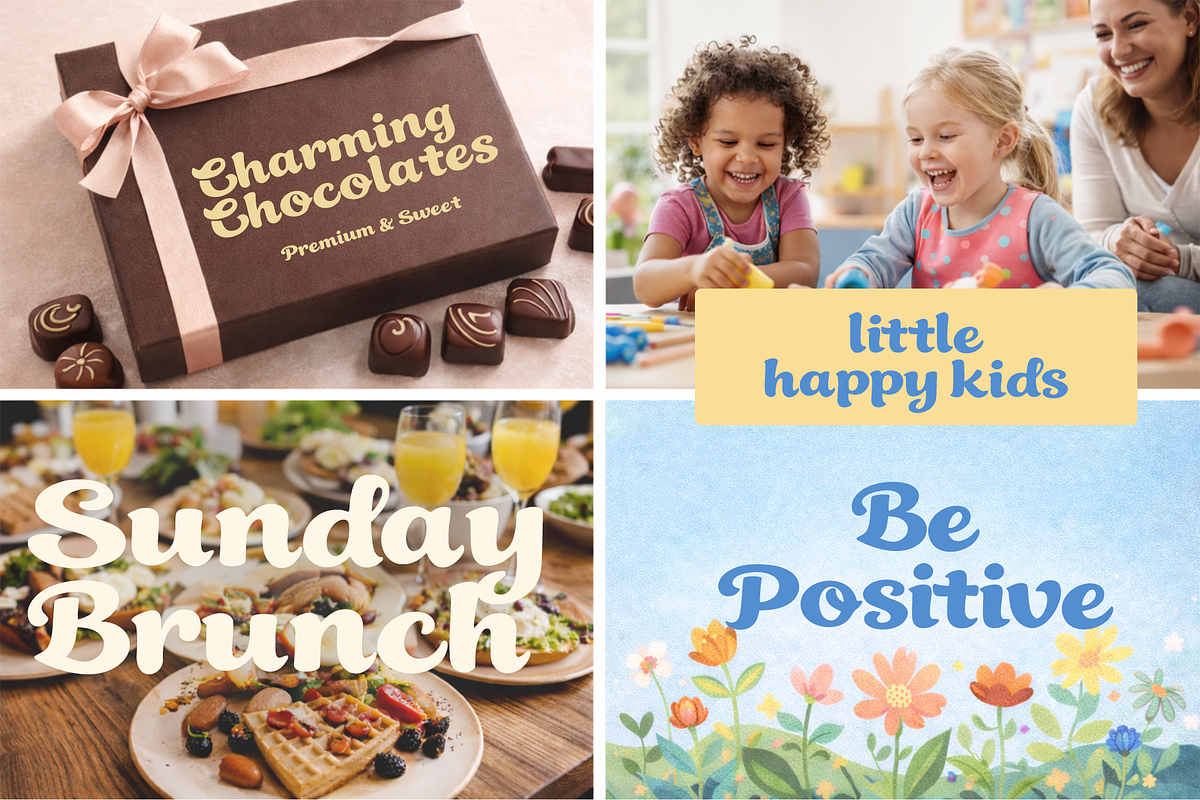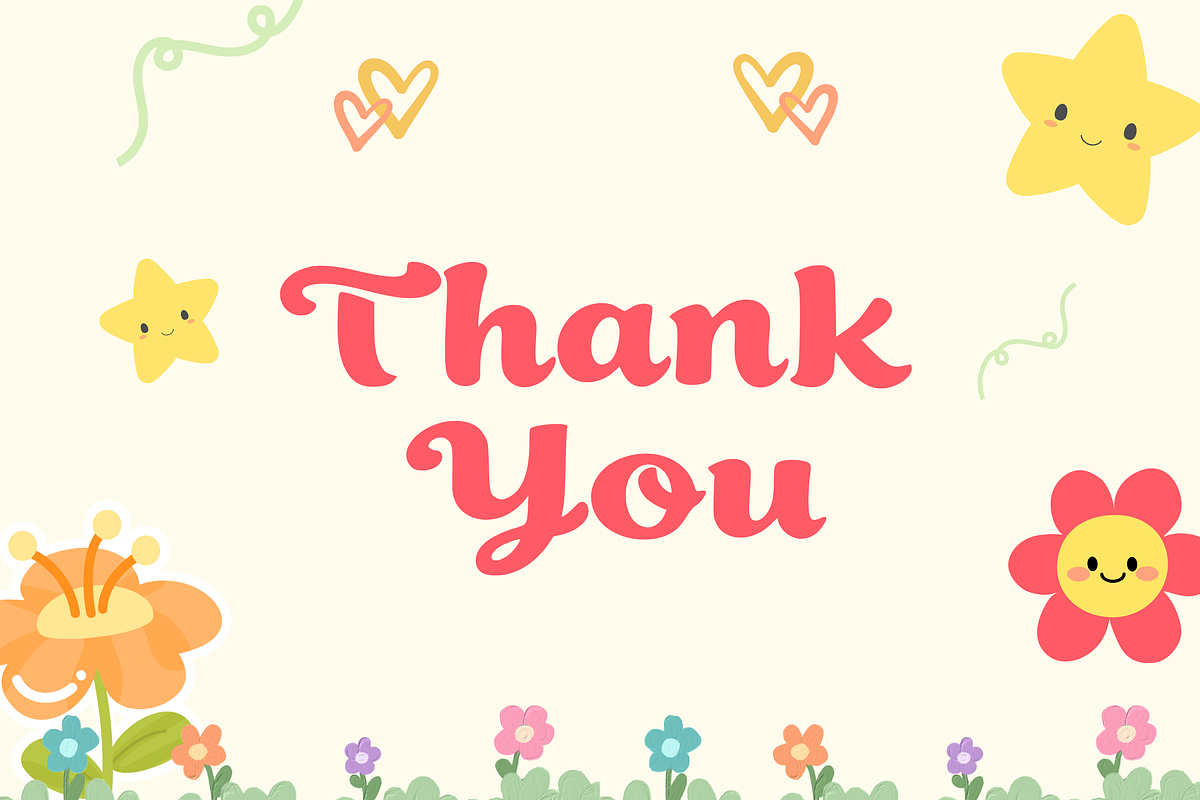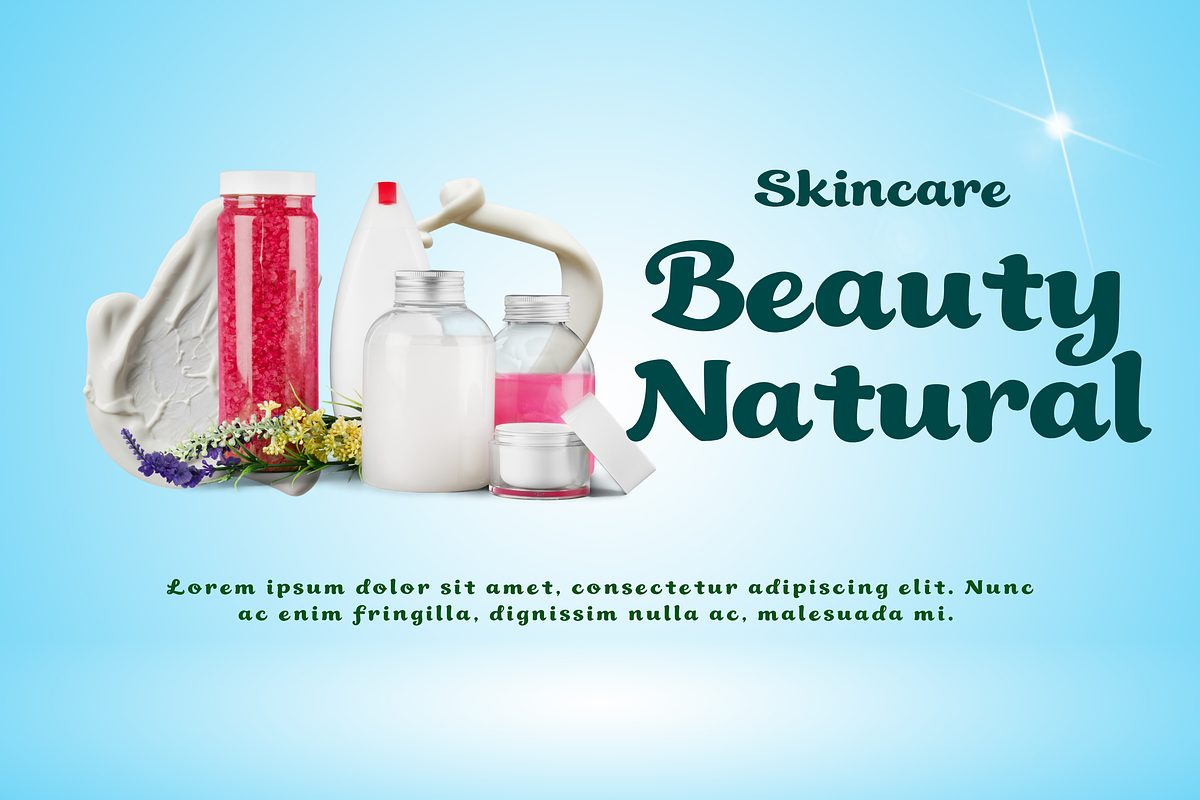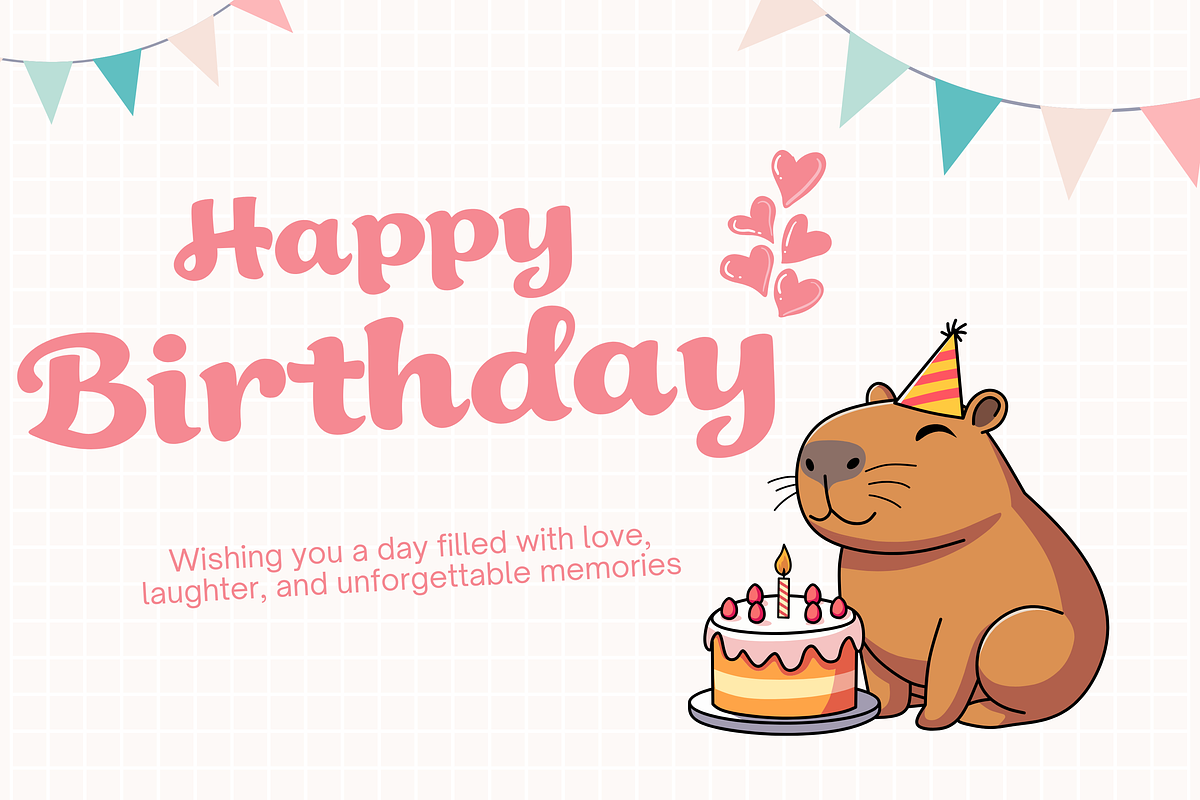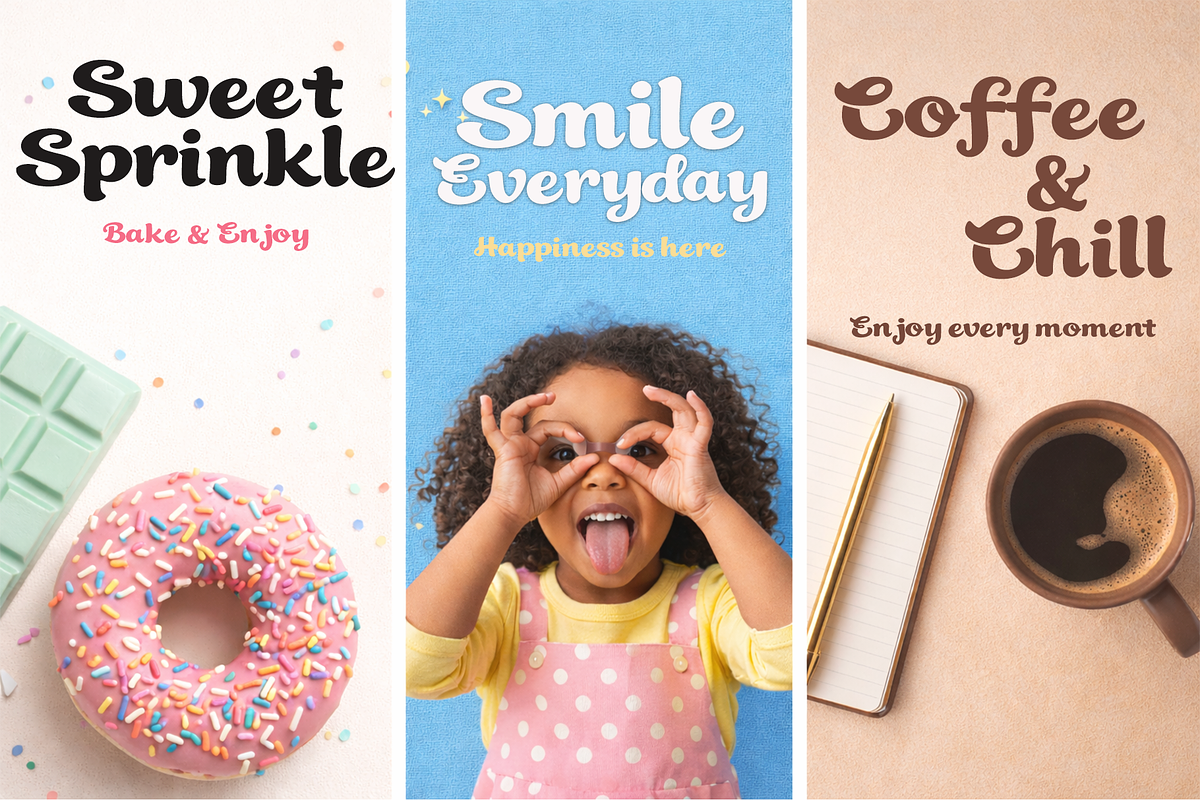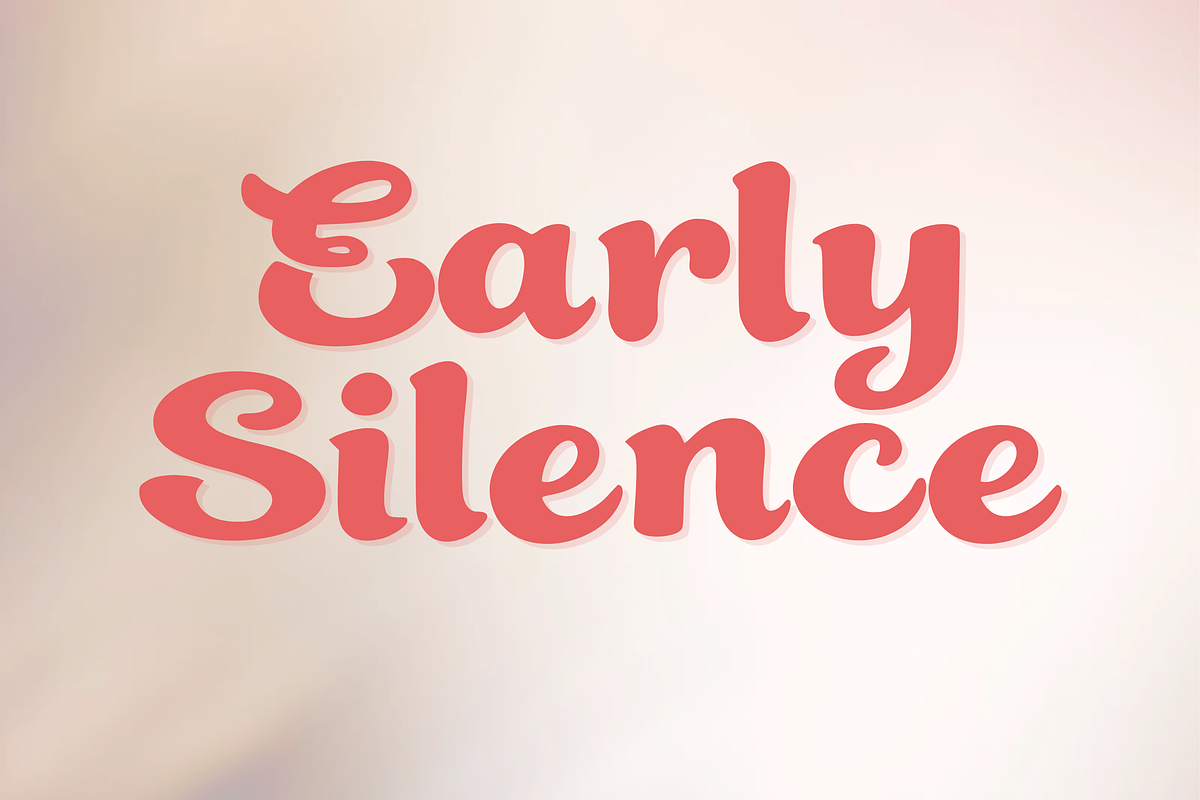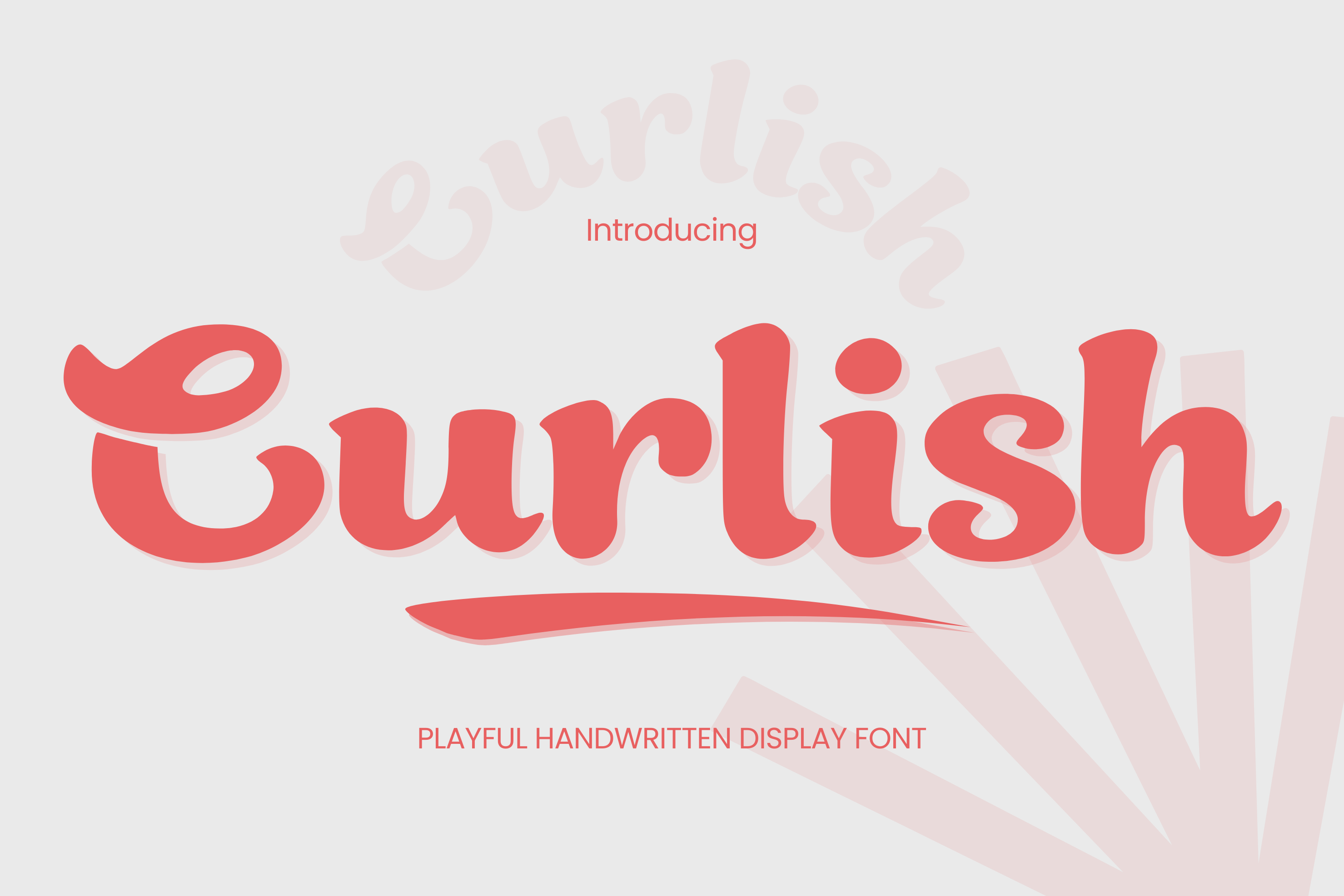
Curlish font
Curlish is a playful handwritten display font featuring bold, rounded, and smooth letterforms. Designed to deliver a friendly and cheerful look, this font combines a natural handwritten feel with clear readability.
Curlish works perfectly for eye-catching designs and creative projects that need a fun, modern, and approachable appearance. Its balanced shapes make it suitable for both digital and print use.